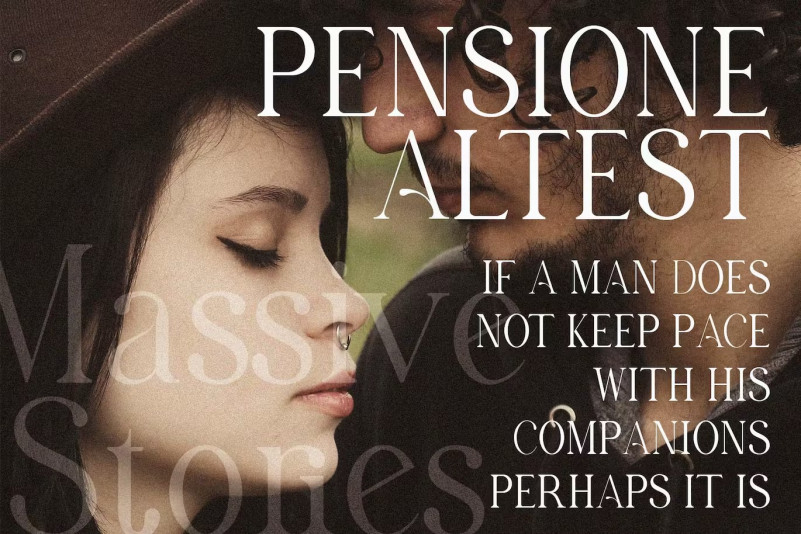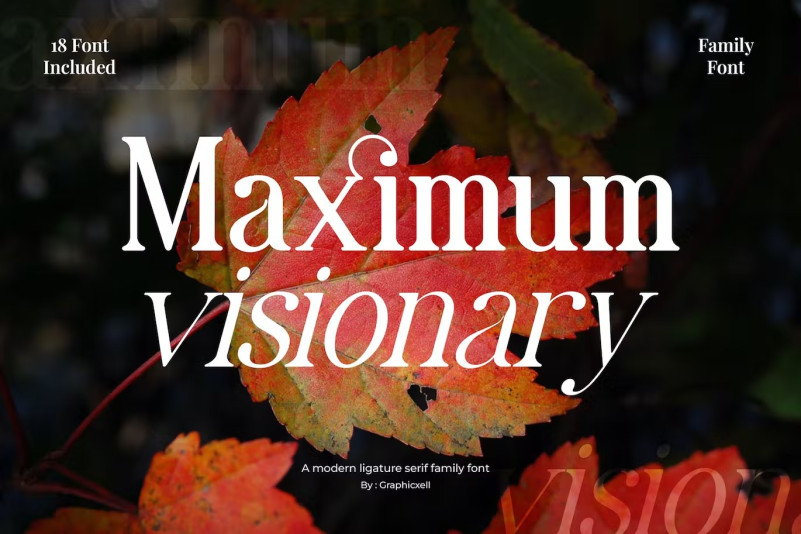
Maximum Visionary Font
Maximum Visionary Font – Family Elegant Serif font is inspired by famous minimalist logo, perfect for template design, brochure, video, brand ad, logo, invitation, layout, elegant craft, web design. beauty, etc